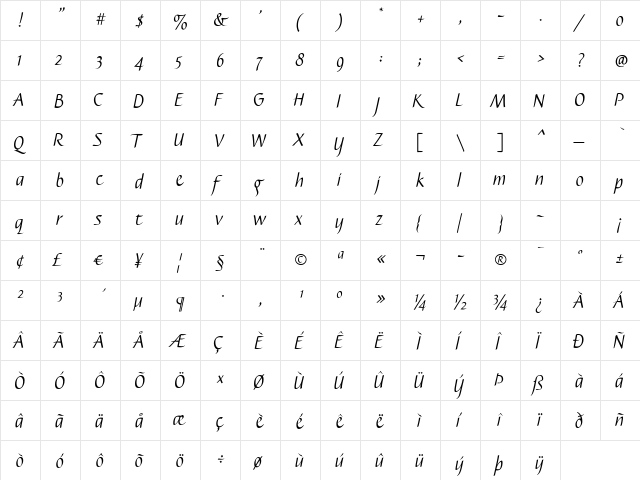
Caterina Lt LightItalic
Design Context for Caterina Lt Typeface
Caterina Lt is a composed and adaptable typeface that performs quietly and consistently across a wide range of design contexts. The slanted form adds forward momentum and visual energy. Its slender proportions lend an understated elegance to any composition.